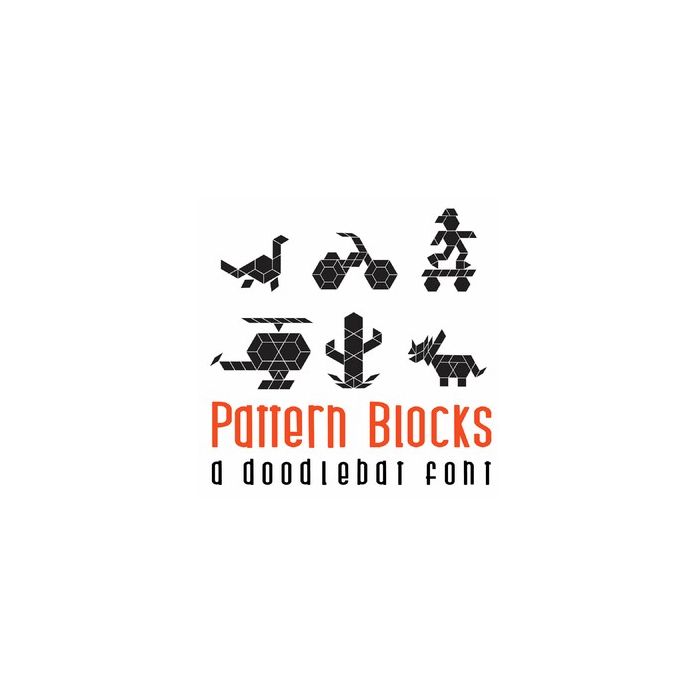
This fun doodlebat font features 26 pattern block images. This fun set is perfect for the classroom, preschool, education, using tangram sets and more!